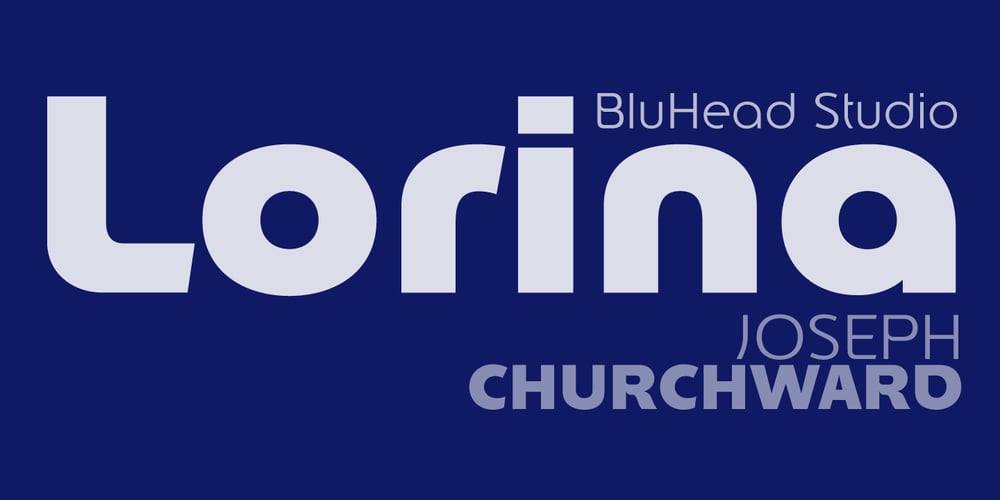
Churchward Lorina Font Family was designed by Joseph Churchward and published by BluHead Studio. Churchward Lorina contains 4 styles and family package options. Churchward Lorina is a four weight typeface family originally designed in 1996 by New Zealand type designer Joseph Churchward. A personable geometric sans serif, it possesses some of Churchward’s trademark quirkiness but reamins highly legible and readable on screen as well as in print. The family includes Light, Regular, Bold and Black.